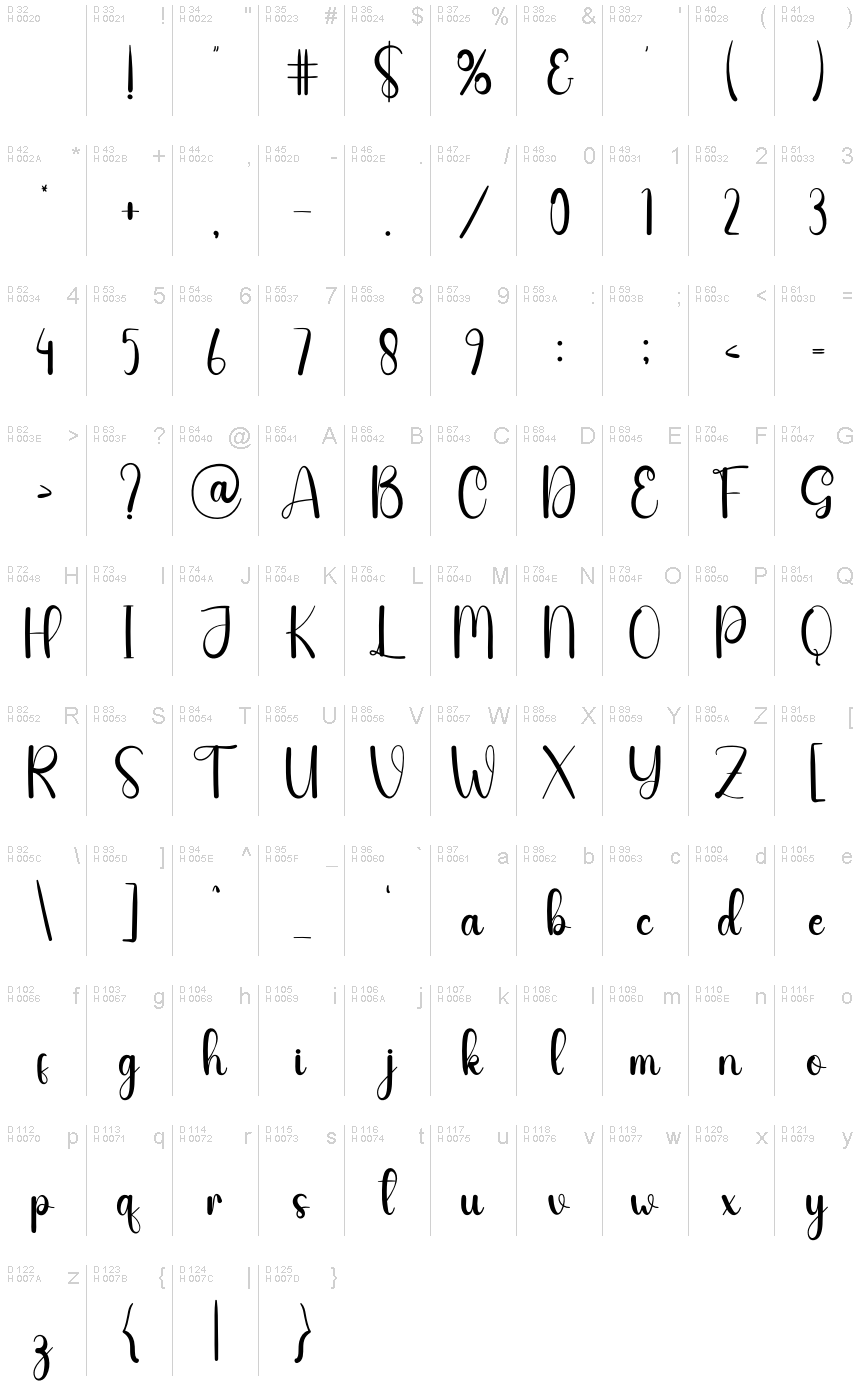
Sweet Drinks
Sweet Drinks is a captivating handwritten font designed by Andi Moz. Its playful and fluid strokes evoke a sense of whimsy and charm, making it an intriguing choice for a variety of design applications. The font's organic, script-like qualities lend it a natural, artisanal feel, well-suited for branding, packaging, and editorial layouts. Its distinct character and versatility make it a versatile tool in the designer's toolkit, adding a touch of handcrafted elegance to any project.
This font's unique personality and stylistic flair make it an excellent option for projects seeking a distinctive, hand-lettered aesthetic. Its applications range from creative logo design and invitations to product labeling and promotional materials, providing designers with a captivating typographic solution that adds a personal touch to their work.